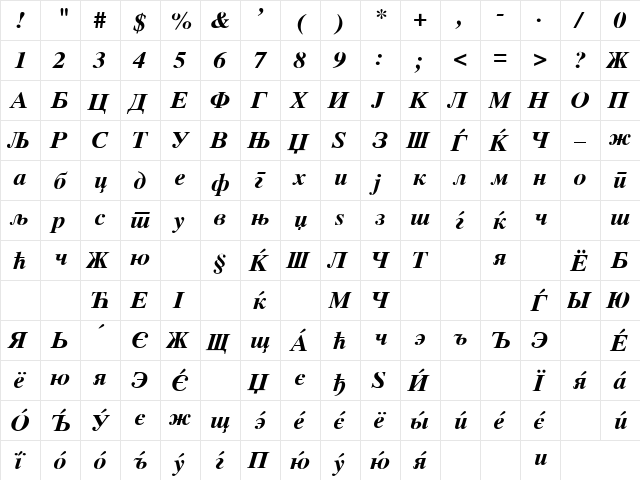
Matka Bold Italic
Design Context for Matka Typeface
Matka takes a measured approach to typography — its balanced proportions and neutral character make it a reliable workhorse for both digital and print work. The dynamic lean of this cut emphasises speed and emphasis in any layout. The heavy weight commands attention and anchors typographic hierarchies.
Pro Tip: Try Matka for annotation and caption copy alongside an upright companion — the contrast in angle creates a dynamic but ordered typographic system.